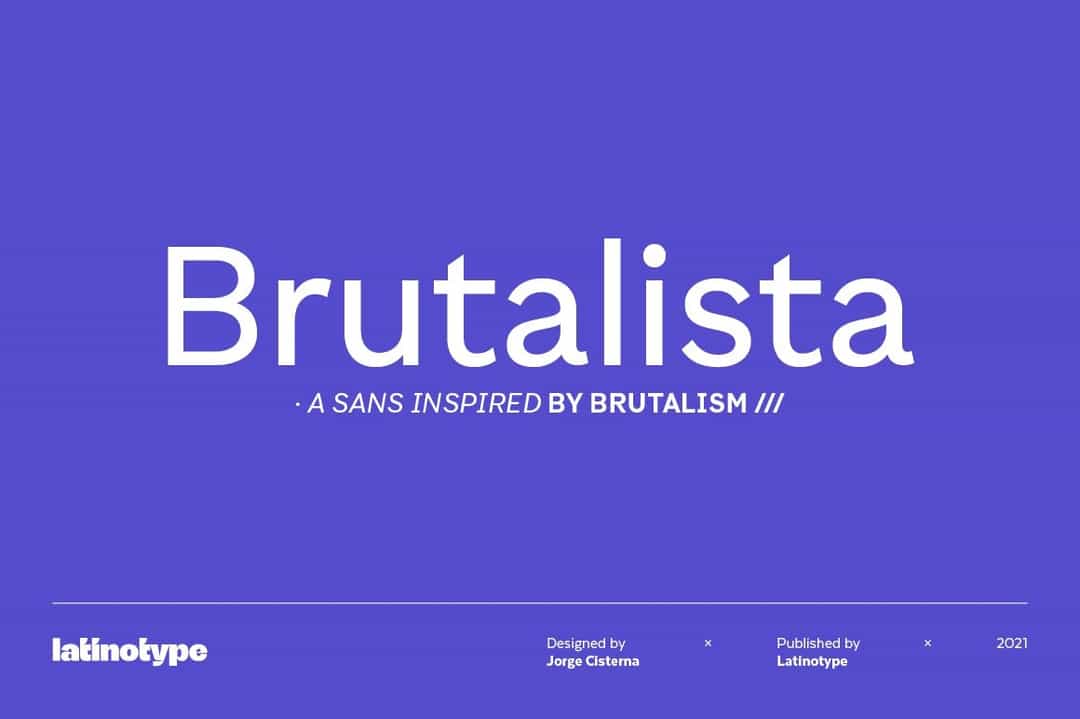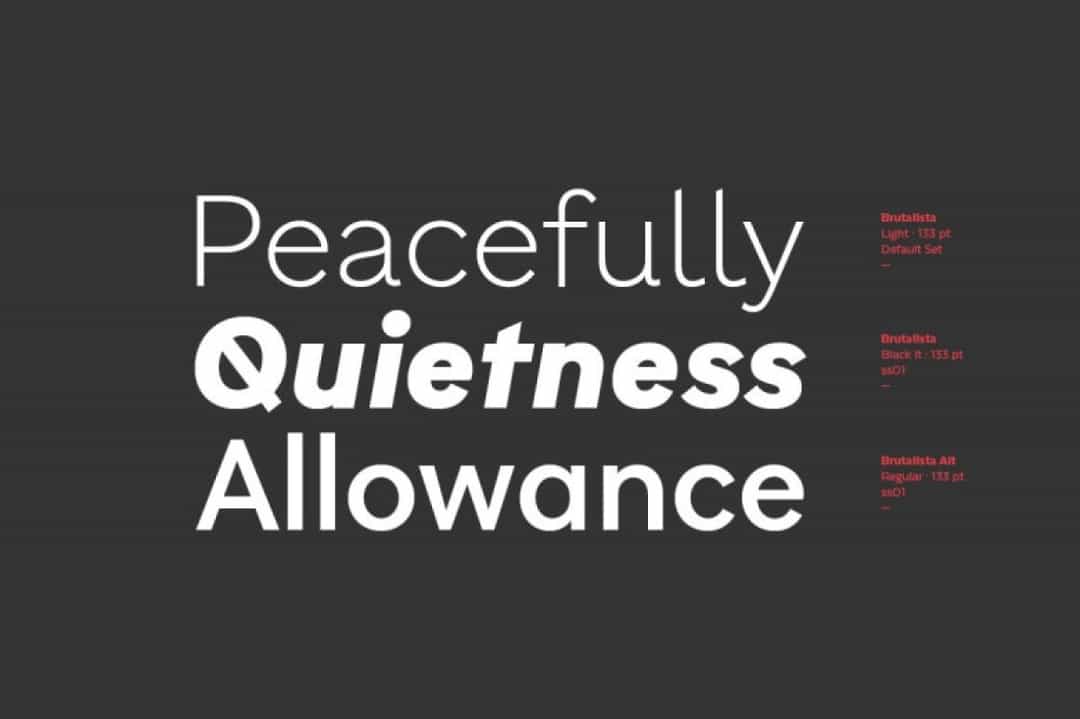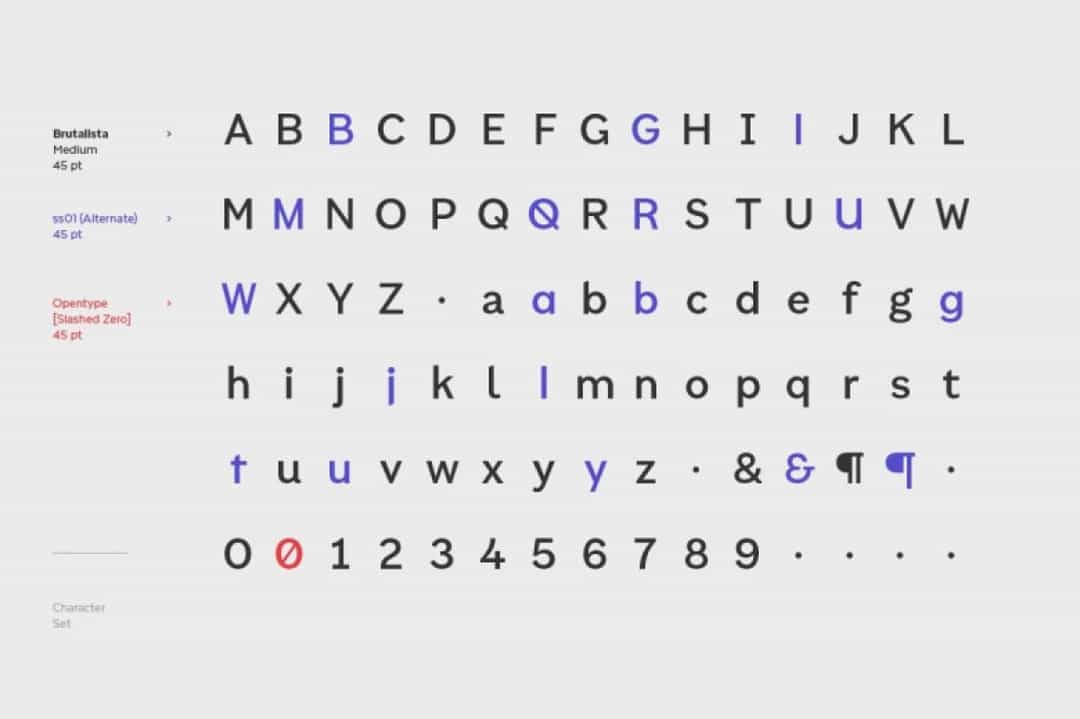
Brutalista Font Family can be defined as an sans-serif typeface inspired by brutalist architecture which utilizes raw or unfinished materials as its focus. Graphic design uses this style to break rules and attract attention; his roots lie within early 20th century neo-grotesque styles as well as modern contemporary ones.